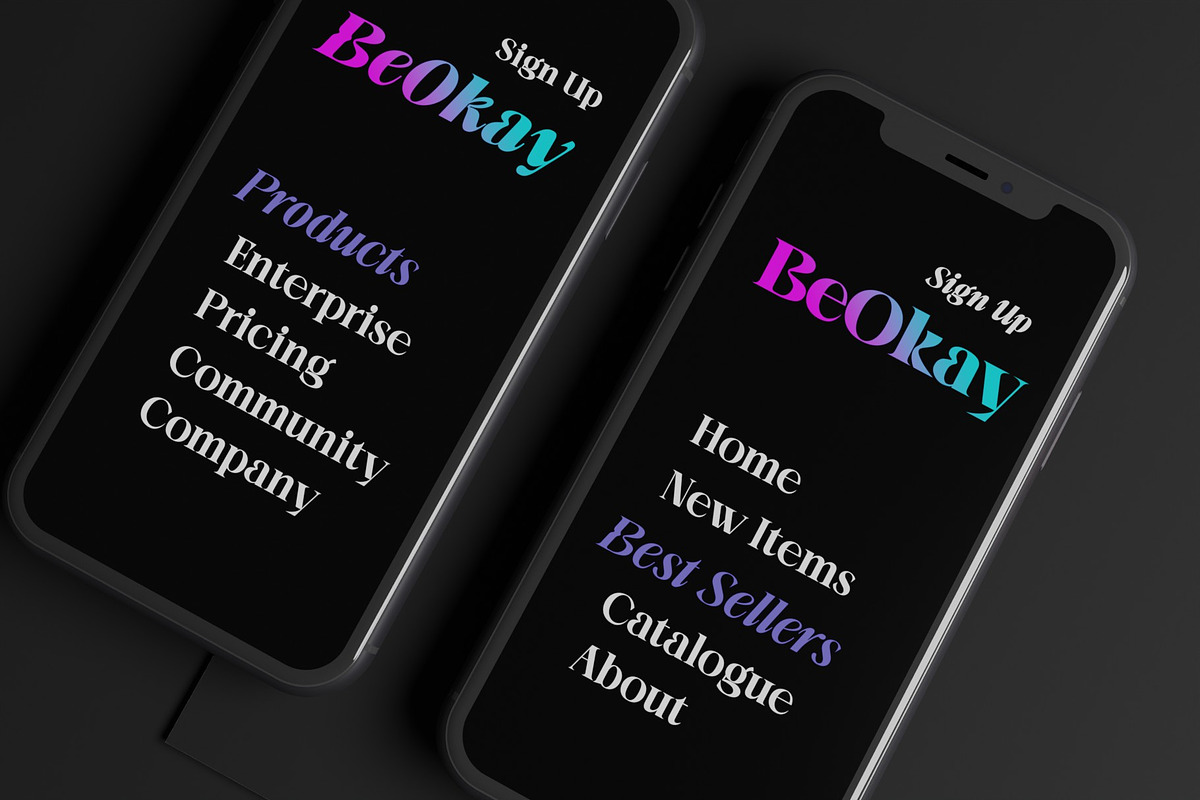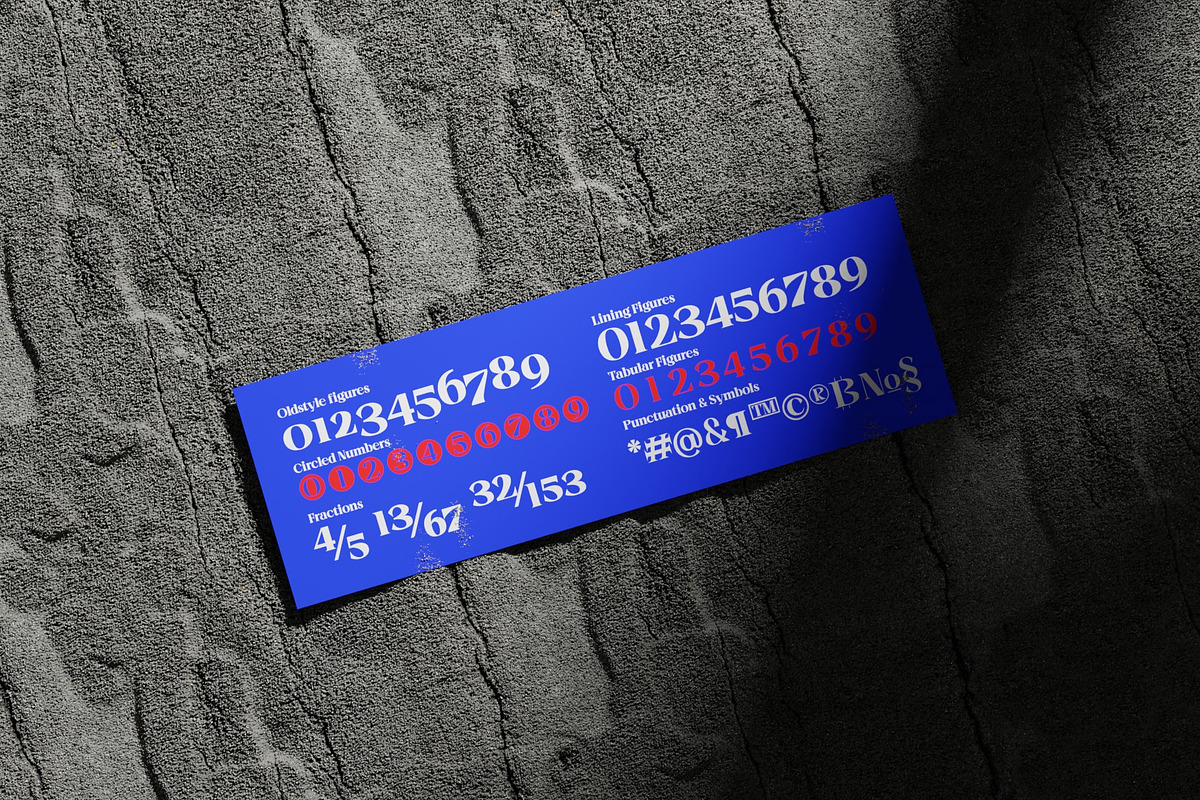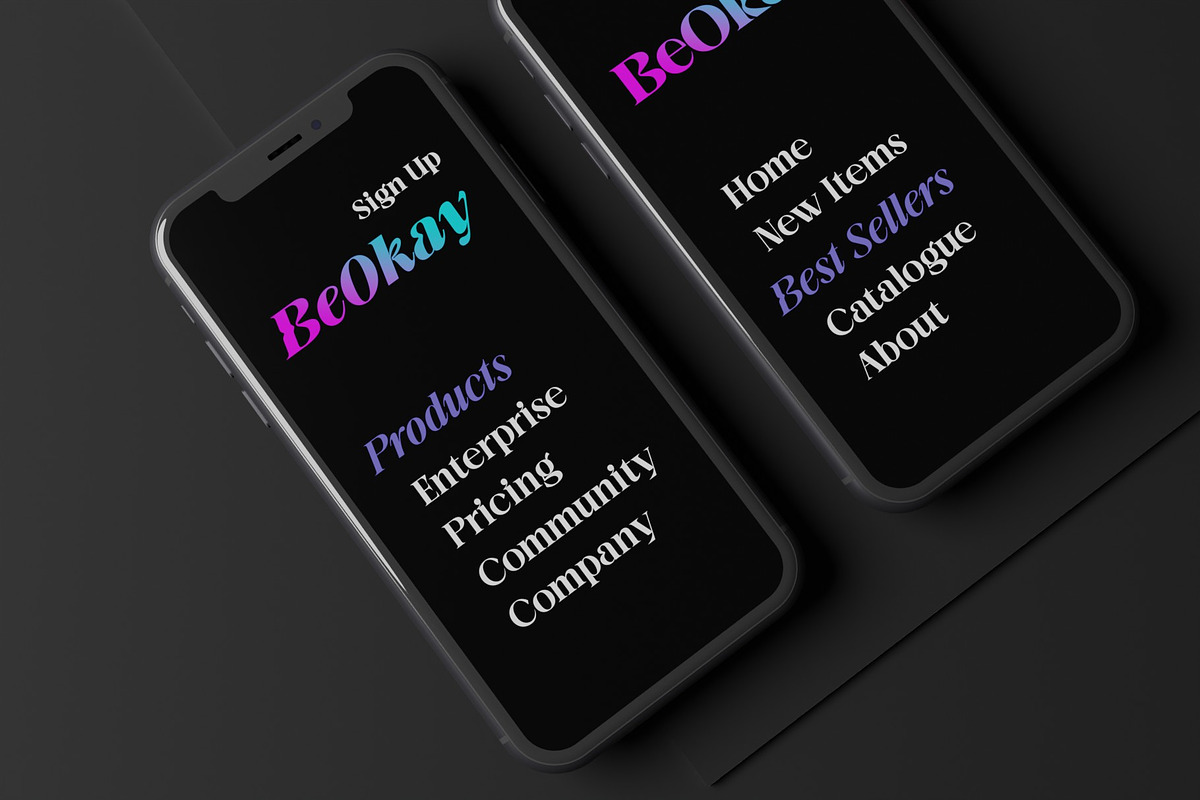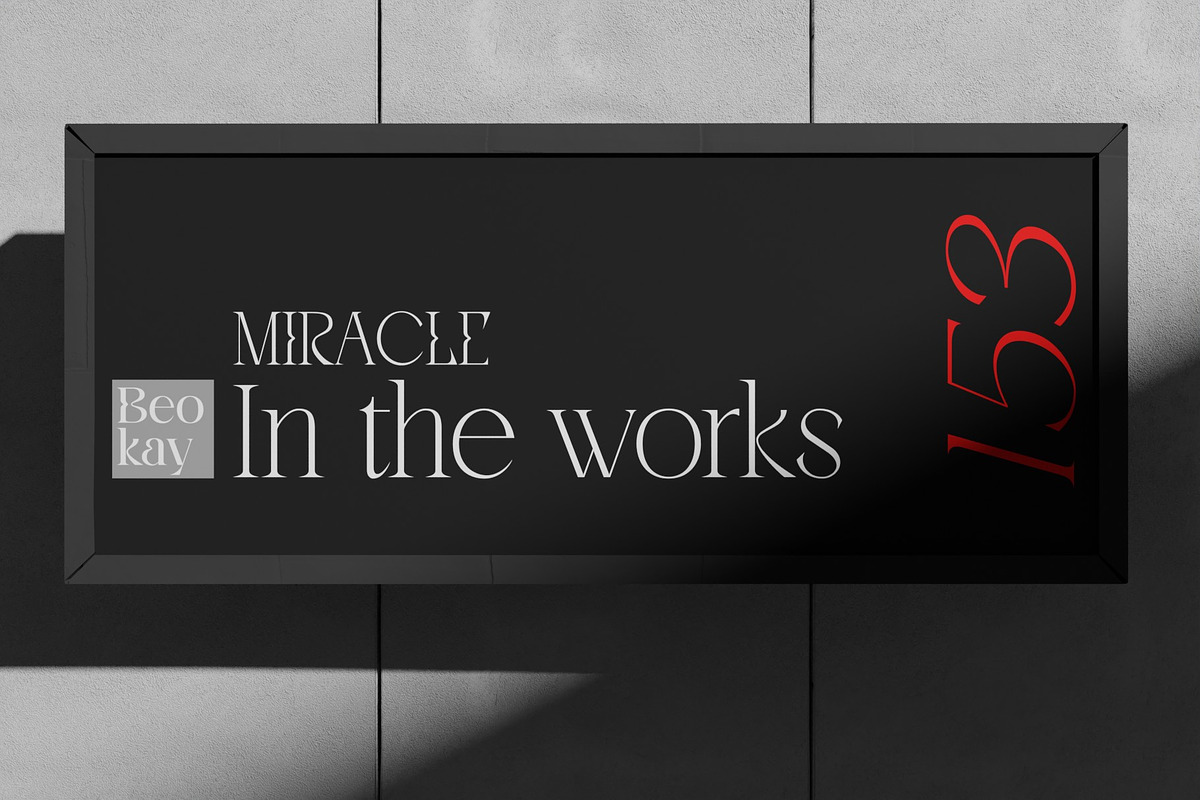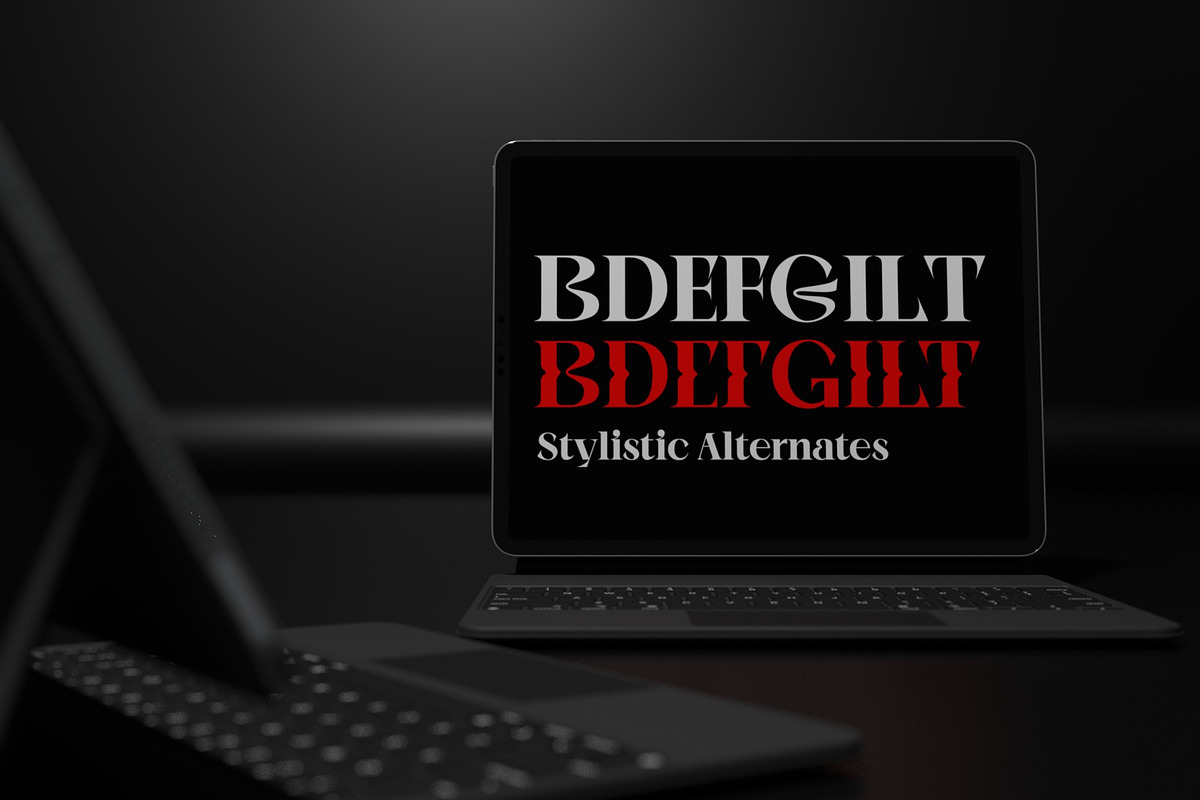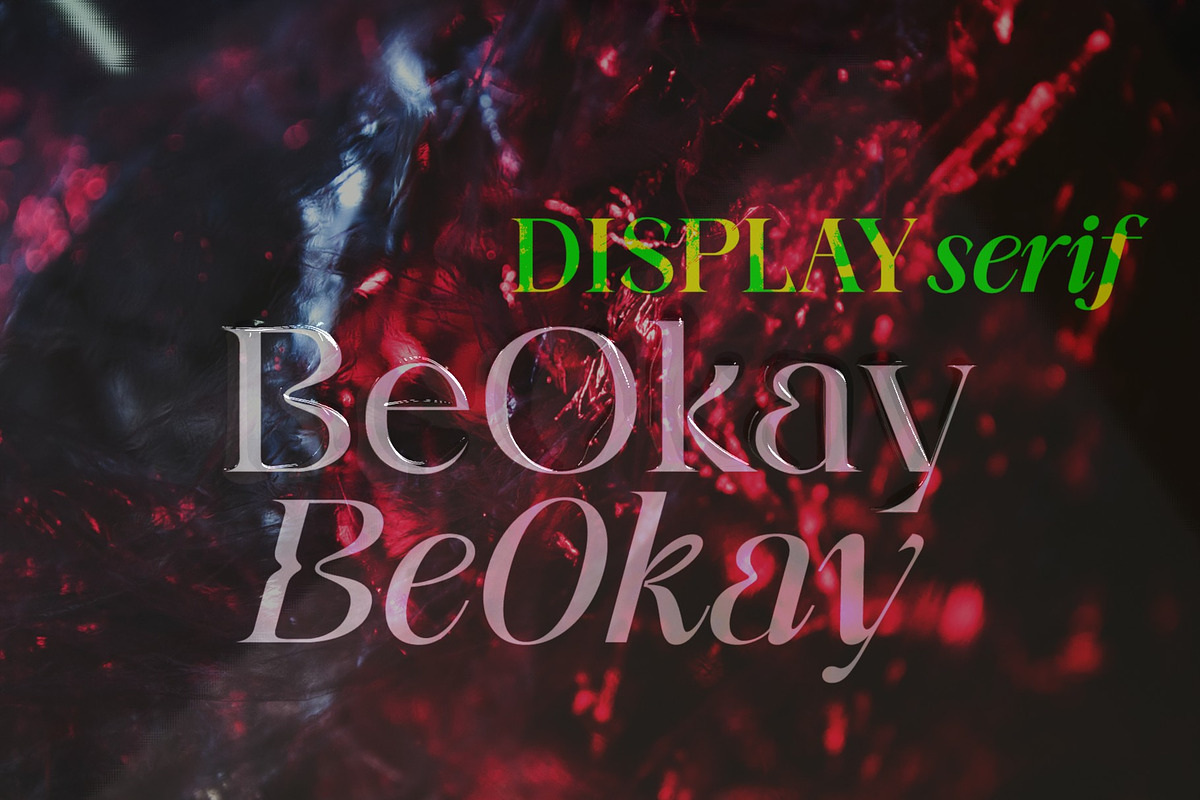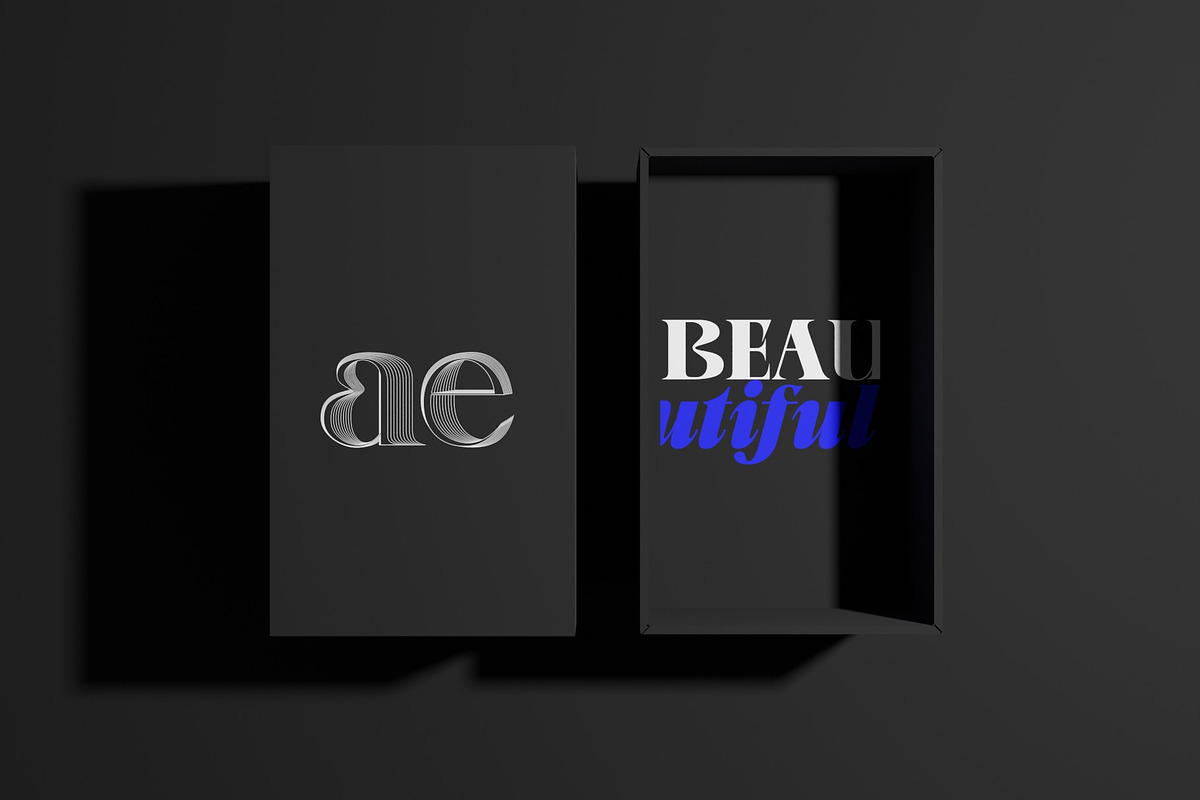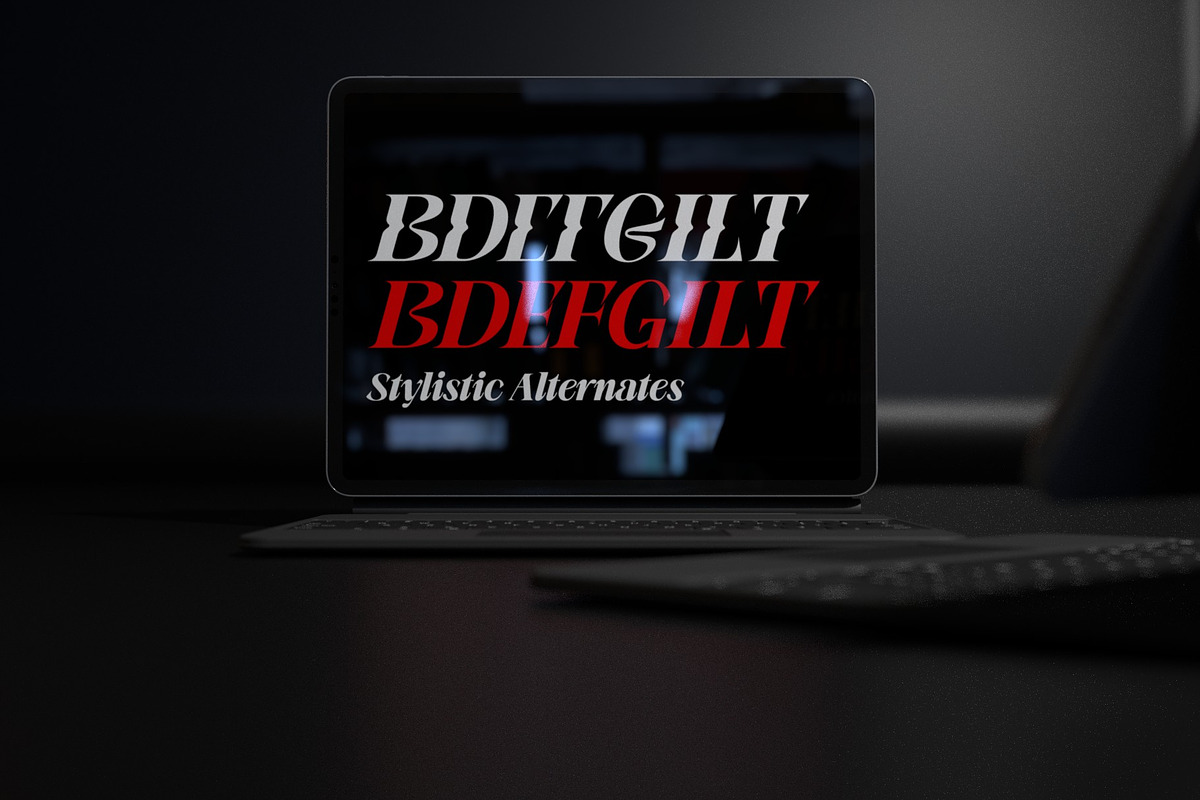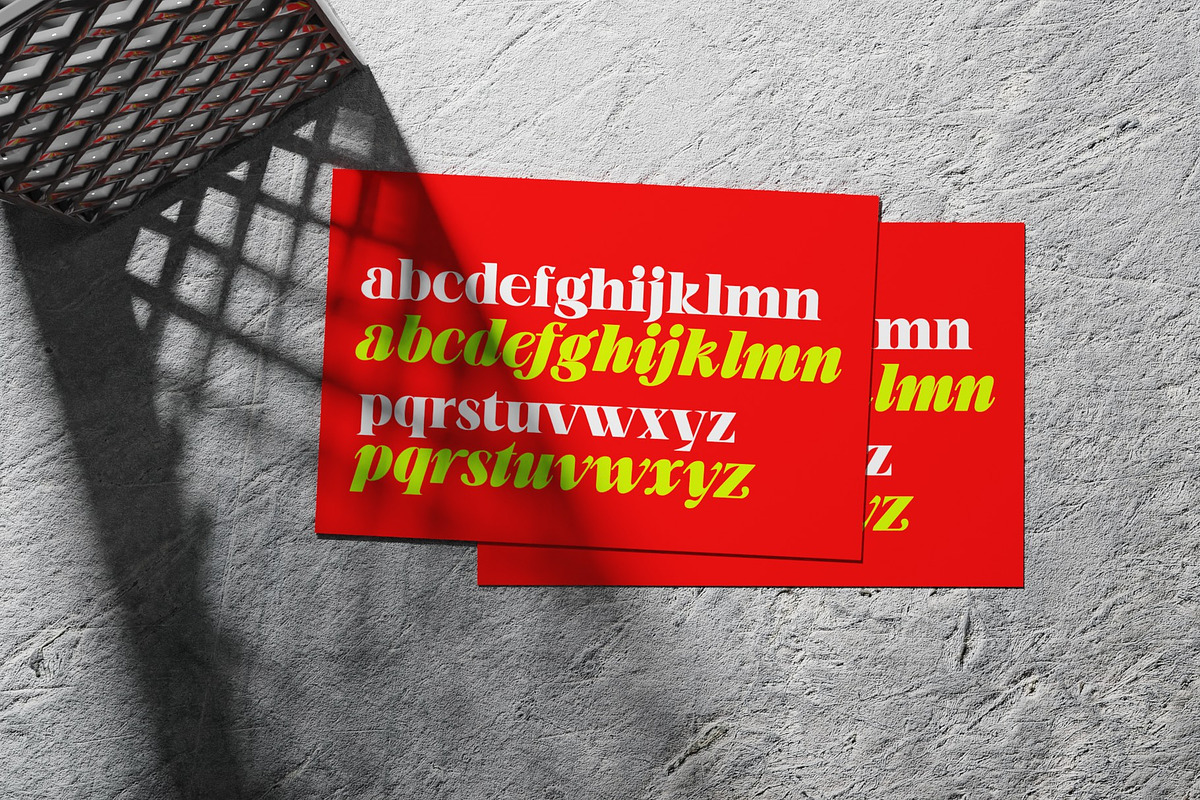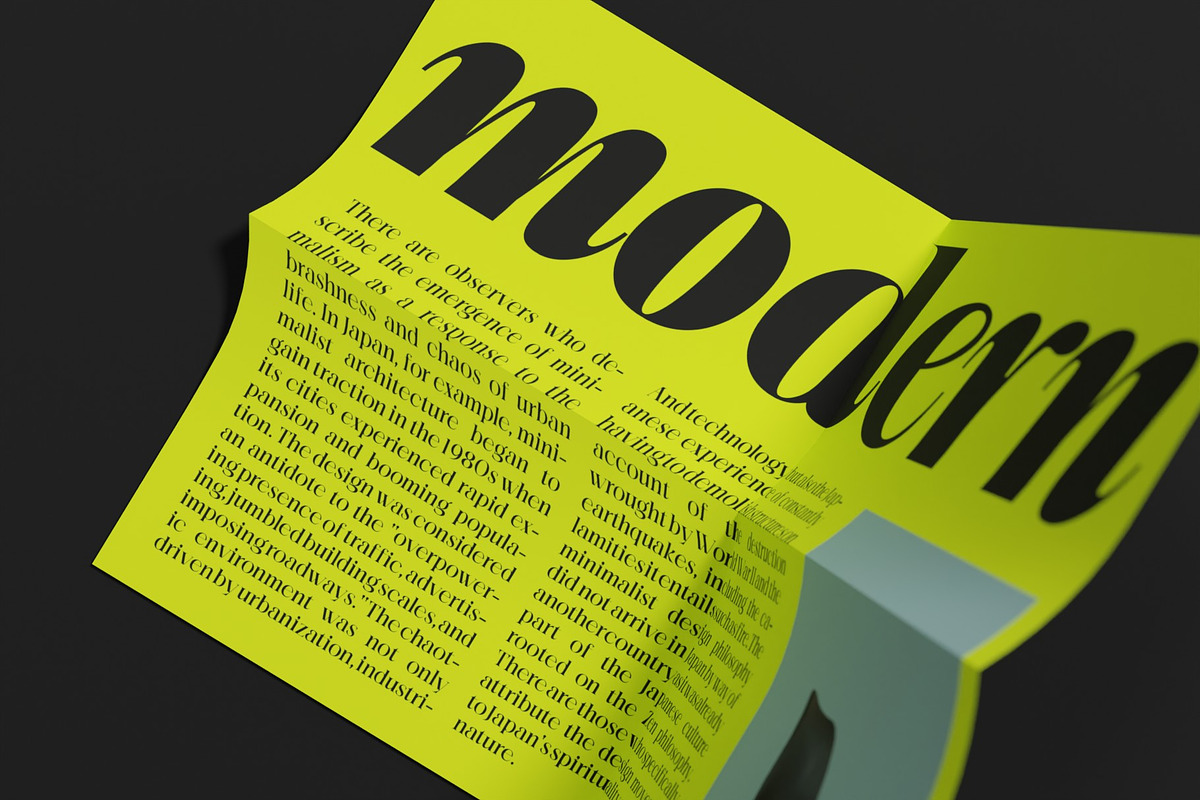
BeOkay Display Serif
BeOkay Display Serif Font Family
Introducing the classy display serif family for a variety of presentations. The Features of styles that each weight has will be an important reason for choosing a font family.
The combination of dreamy grooves and sophisticated, sharp serifs will excite you. The psychedelic glyphs applied to some capital letters can be alternated with the classic stem forms.
And the elegant and colorful transformation of italic styles will be the best inspirations for brand design.
Be sure to try the Stylistic Alternates and Ligatures this family has to offer.
OpenType Features
- Stylistic Alternates - B, D, E, F, G, I, L, T
- Standard Ligatures - fb, ff, ffb, ffi, fh, fi, fl, ft
- Fractions
- Oldstyle Figures
- Tabular Figures
- Circled Numbers